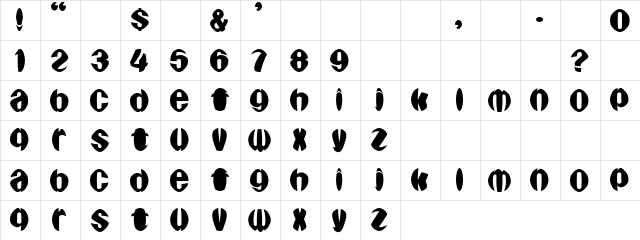
Old Cask Regular
Design Context for Old Cask Typeface
Old Cask is a composed and adaptable typeface that performs quietly and consistently across a wide range of design contexts.